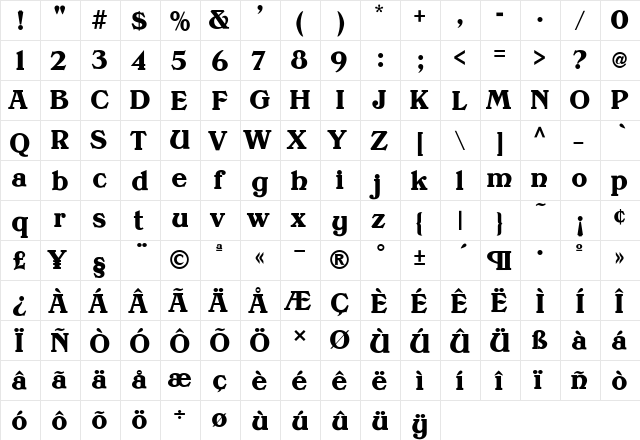
PoynderBold Regular Font Preview
PoynderBold Regular
PoynderBold Regular Font Details
Design Context for PoynderBold Typeface
PoynderBold offers clean, dependable letterforms without strong stylistic allegiance, making it a practical choice for designers who need flexibility. The heavy weight commands attention and anchors typographic hierarchies.